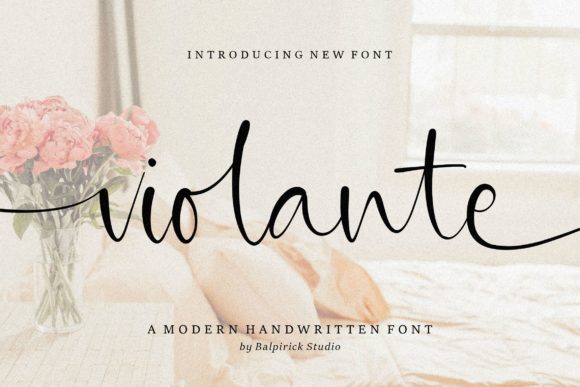
Introducing Violante Font, an Exquisite Script Font That Will Captivate Your Designs
Prepare to be enchanted by Violante Font, a visually stunning handwritten font that oozes elegance and charm. Step into a world of captivating designs infused with a touch of luxury and a dash of uniqueness. Violante Font will leave a lasting impression on your creative projects, adding a personal touch that speaks volumes.
This exquisitely crafted script font possesses a distinctive character that sets it apart from the ordinary. Each letter dances across the page with an unmatched grace, evoking a sense of sophistication and artistry. Whether you're creating wedding invitations, branding materials, or social media graphics, Violante Font will elevate your designs to new heights.
With Violante Font, you can unlock a realm of possibilities. Its versatility knows no bounds, allowing you to explore various styles and themes. From whimsical and playful to formal and elegant, this font seamlessly adapts to your creative vision. Let your imagination run wild as you witness your designs transform into masterpieces.
The secret behind Violante Font's captivating charm lies in its intricate details. The carefully crafted swashes and flourishes add a touch of allure, while the delicate ligatures create a harmonious flow that captivates the eye. Each glyph has been meticulously designed to ensure pixel-perfect precision, resulting in stunning visuals that leave a lasting impression.
Violante Font is not just a tool; it's an extension of your creativity. Its PUA encoding makes accessing all the glyphs and swashes a breeze, empowering you to unleash your artistic flair effortlessly. Whether you're a seasoned designer or just starting, Violante Font will become your trusty companion, enabling you to create designs that captivate and inspire.